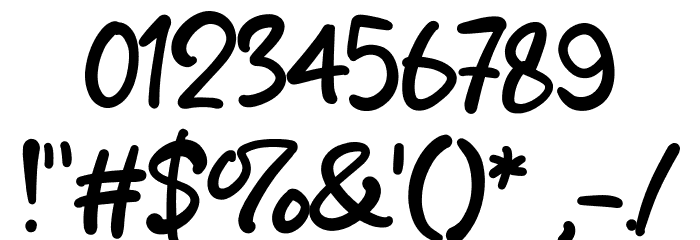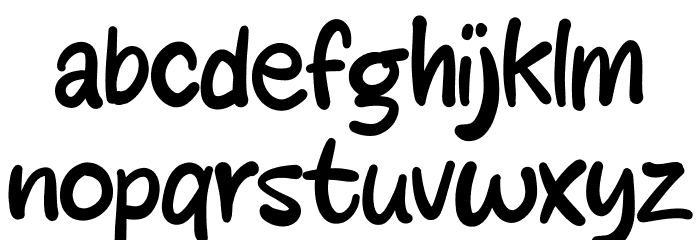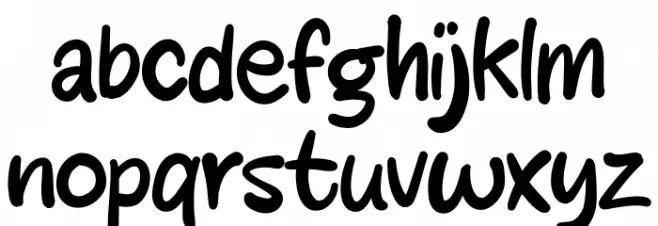
Jessycat Font
Jessycat Description
This playful and energetic font features a handwritten style with bold, rounded strokes that convey a sense of fun and approachability. The letters are slightly slanted, giving them a dynamic and informal appearance. The uppercase and lowercase characters maintain a consistent style, with smooth curves and a casual flair. Numbers and special characters are designed to match the overall aesthetic, ensuring a cohesive look across all text elements. This font is perfect for projects that require a friendly and inviting tone.
A playful, handwritten font with bold, rounded strokes and a casual, dynamic style from Uncategorized fonts.
- Font: Jessycat
- Proposed Projects: Ideal for children's books, greeting cards, playful branding, and social media graphics.
- Overall Style: Playful
- Use Case: Headlines, Logos, Informal Text